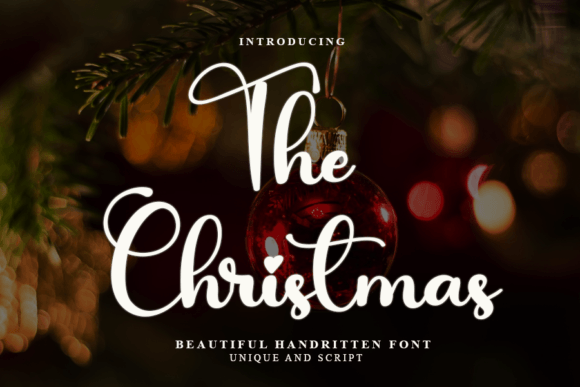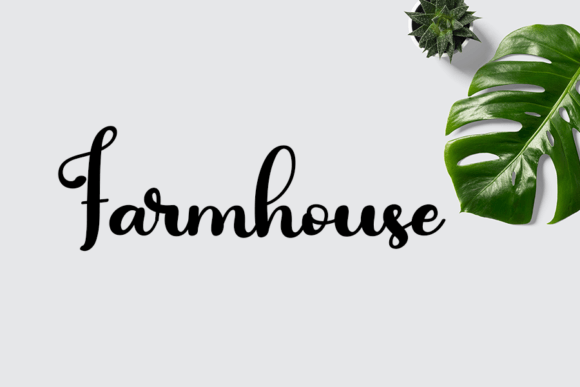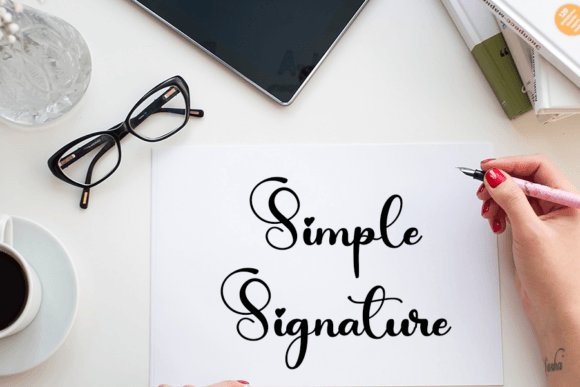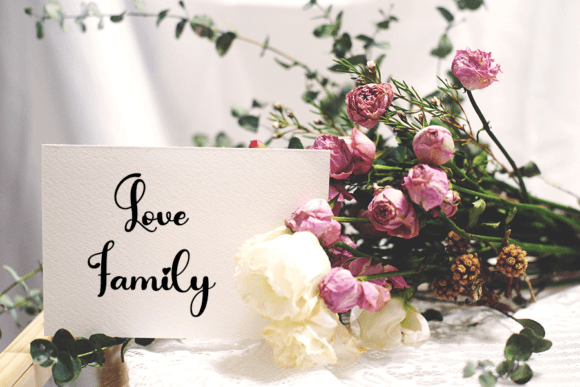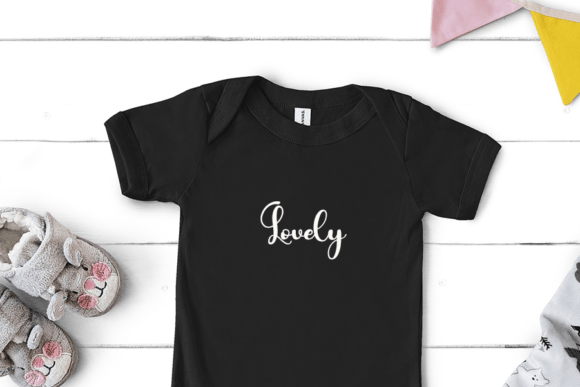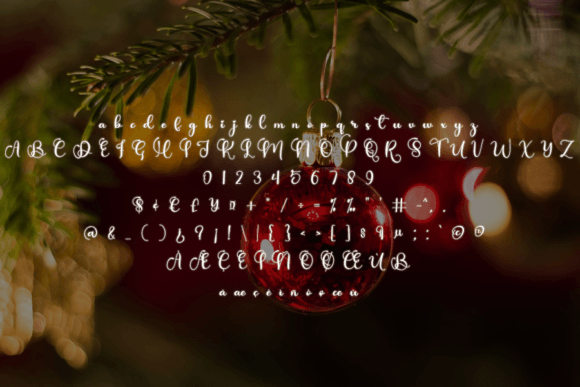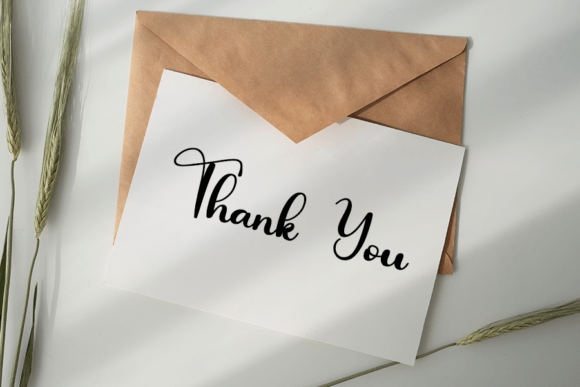
The Christmas Font
About The Christmas Font
“The Christmas” is a delicate handwritten font that has been thoughtfully designed to bring a cool and unique touch to your creative projects. With its charming and festive appearance, this font is particularly well-suited for various design applications where a touch of holiday spirit is desired.
Whether you’re writing letters, creating invitations, designing food product labels, crafting titles, or working on any other project that requires a festive and handwritten aesthetic, “The Christmas” can be a valuable addition to your font library.
The font’s delicate and unique design sets it apart, making it perfect for conveying the warmth and joy of the holiday season. Its handwritten style adds a personal and friendly touch to your designs, helping to create a cozy and inviting atmosphere.
In summary, “The Christmas” is a delicate handwritten font that brings a cool and unique vibe to your designs, making it an excellent choice for holiday-themed projects and more. Its versatility allows it to be used in various applications where a festive and handwritten look is desired, adding a touch of holiday spirit to your creative work.